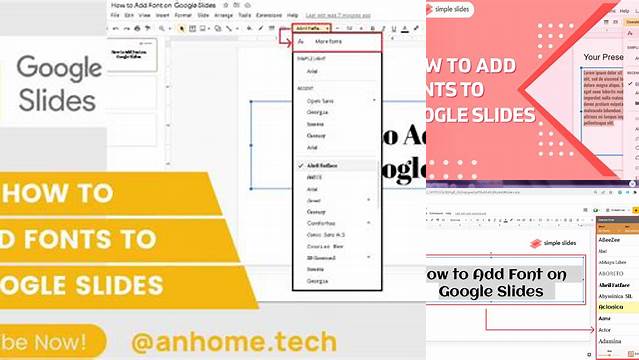
Add Fonts To Google Slides: A Step-by-Step Guide
Hey guys! Ever felt like your Google Slides presentations are missing that special something? You know, that unique touch that makes your slides pop and truly reflect your style? Well, one of the easiest ways to achieve this is by customizing your fonts! Google Slides offers a decent selection of fonts, but sometimes you need something more, something that perfectly complements your content and brand. Luckily, adding fonts to your Google Slides theme is a breeze, and in this article, I'm going to walk you through the process step-by-step. So, let's dive in and make your presentations visually stunning!
Why Add Custom Fonts to Google Slides?
Before we get into the how, let's quickly chat about the why. Why bother adding custom fonts? Well, think of it this way: fonts are like the voice of your presentation. They convey tone, personality, and professionalism. Using the same old default fonts can make your slides look generic and, let's be honest, a little boring. By adding custom fonts, you can:
- Enhance Visual Appeal: Custom fonts can dramatically improve the visual appeal of your slides, making them more engaging and memorable.
- Reflect Your Brand: If you're creating presentations for a business or organization, using brand-specific fonts helps maintain consistency and reinforces your brand identity.
- Add Personality: Different fonts have different personalities. A playful font can add a touch of fun, while a more formal font can convey professionalism and authority.
- Improve Readability: Choosing the right font can make your slides easier to read, ensuring your message gets across clearly.
- Stand Out from the Crowd: In a world of cookie-cutter presentations, custom fonts help you stand out and make a lasting impression.
Think about it, guys. A beautifully designed presentation with the perfect font can capture your audience's attention from the get-go. It shows you've put thought and effort into your work, and that you care about the details. Plus, it's just plain fun to experiment with different fonts and see how they transform your slides!
Step-by-Step Guide: Adding Fonts to Your Google Slides Theme
Alright, let's get down to the nitty-gritty. Here's a step-by-step guide on how to add fonts to your Google Slides theme. Don't worry; it's super easy, even if you're not a tech whiz!
Step 1: Open Google Slides and Access the Theme Builder
First things first, fire up Google Slides and open the presentation you want to customize. If you're starting from scratch, that's totally fine too! Once you're in your presentation, you need to access the Theme Builder. This is where the magic happens, guys. To do this, simply:
- Click on "Slide" in the top menu.
- Select "Edit theme" from the dropdown menu.
The Theme Builder will open in a new tab or window. This is where you can customize the overall look and feel of your presentation, including the fonts.
Step 2: Select Your Font in Theme Builder
Now that you're in the Theme Builder, you'll see a sidebar on the left-hand side. This sidebar contains the different slide layouts that make up your theme. To change the font for your entire presentation, you'll need to modify the main theme. Here's how:
- In the left-hand sidebar, click on the first slide layout, which represents the main theme. It's usually at the very top.
- Now, click on the text box where you want to change the font. This could be the title, the body text, or any other text element.
- In the toolbar above the slide, you'll see the font selection dropdown. It probably says something like "Arial" or "Calibri" right now.
- Click on the font selection dropdown to open the list of available fonts.
Step 3: Explore the Font Menu and Choose "More fonts"
Okay, here's where things get interesting! The font selection dropdown shows you a list of the fonts that are already available in Google Slides. But we want to add more, right? So, scroll down to the very bottom of the font list and click on "More fonts". This will open a new window with a whole bunch of font options!
This window is like a font paradise, guys. You'll find hundreds of fonts to choose from, organized in different categories and styles. It's easy to get lost in here, so take your time and explore!
Step 4: Browse and Add Your Desired Fonts
In the "More fonts" window, you'll see a massive list of fonts on the left-hand side. You can scroll through the list, or you can use the filters at the top to narrow down your search. Here are a few tips for finding the perfect fonts:
- Use the Categories: The categories filter lets you browse fonts by style, such as Serif, Sans Serif, Display, Handwriting, and Monospace. This is a great way to find fonts that match the tone of your presentation.
- Use the Scripts: The scripts filter lets you browse fonts that support different writing systems, such as Latin, Cyrillic, Greek, and more.
- Use the Sorting Options: You can sort the fonts by popularity, trending, or alphabetical order.
- Preview the Fonts: As you click on a font, you'll see a preview of how it looks in the right-hand panel. This is super helpful for visualizing how the font will look in your slides.
Once you find a font you like, simply click on it to add it to your list of available fonts. You'll see a blue checkmark appear next to the font name, and it will be added to the "My fonts" list at the top of the window. You can select multiple fonts at once, which is a real time-saver!
Step 5: Apply the Font to Your Theme
Once you've selected all the fonts you want to add, click the "OK" button in the "More fonts" window. This will close the window and return you to the font selection dropdown in the Theme Builder. Now, you'll see your newly added fonts in the list!
To apply the font to your theme, simply select it from the dropdown. The text in the text box you selected will instantly update to the new font. If you want to change the font for other text elements, just repeat steps 2 and 5 for each element.
Remember, guys, changing the font in the main theme layout will update the font for all the other slide layouts in your presentation. This is a quick and easy way to ensure consistency throughout your slides.
Step 6: Customize Font for Individual Slides (Optional)
While changing the font in the Theme Builder is a great way to set a consistent look for your entire presentation, you might want to customize the font for individual slides or text boxes. This is totally possible! To do this:
- Exit the Theme Builder by clicking the "X" in the top right corner.
- Select the slide you want to customize.
- Click on the text box you want to change.
- In the toolbar above the slide, click on the font selection dropdown.
- Choose your desired font from the list.
This will only change the font for the selected text box, leaving the rest of your presentation untouched. This is perfect for highlighting key points, adding emphasis, or simply creating visual variety.
Step 7: Save Your Theme
You've added your fonts, customized your slides, and your presentation is looking fantastic! Now, don't forget to save your theme! Google Slides automatically saves your changes, so you don't have to worry about losing your work. However, it's always a good idea to double-check that everything is saved correctly.
To make sure your theme is saved, simply close the Theme Builder tab or window. Your changes will be automatically applied to your presentation. And that's it! You've successfully added fonts to your Google Slides theme. Give yourself a pat on the back, guys!
Tips for Choosing the Right Fonts
Now that you know how to add fonts, let's talk about choosing the right ones. With so many fonts to choose from, it can be a little overwhelming. Here are a few tips to help you make the best choices:
- Consider Your Audience: Think about who you're presenting to. A formal audience might appreciate a more traditional font, while a creative audience might be more open to something bold and unique.
- Match the Tone of Your Presentation: The font should match the overall tone of your presentation. If you're giving a serious presentation, avoid overly playful or decorative fonts. If you're giving a fun presentation, feel free to experiment with more creative options.
- Ensure Readability: This is super important! Choose fonts that are easy to read, even from a distance. Avoid fonts that are too thin, too decorative, or too small.
- Use a Limited Number of Fonts: Stick to a maximum of two or three fonts in your presentation. Too many fonts can make your slides look cluttered and unprofessional.
- Pair Fonts Wisely: If you're using multiple fonts, make sure they complement each other. A good rule of thumb is to pair a serif font (like Times New Roman) with a sans-serif font (like Arial).
- Test Your Fonts: Before you give your presentation, test your fonts on different devices and screen sizes to make sure they look good.
Choosing the right fonts is an art, guys. It takes practice and experimentation. Don't be afraid to try different combinations and see what works best for you.
Sometimes, things don't go exactly as planned. You might encounter a few issues when adding fonts to Google Slides. Here are some common problems and how to fix them:
- Font Doesn't Appear in the List: If you've added a font to your "My fonts" list but it doesn't appear in the font selection dropdown, try refreshing your browser. Sometimes, Google Slides just needs a little nudge to update the font list.
- Font Looks Different on Another Computer: If you're using a custom font, it might not be installed on other computers. This can cause your slides to look different when you present them on a different device. To avoid this, you can embed the fonts in your presentation or use Google Fonts, which are available on all devices.
- Font is Too Small or Too Large: If your font is too small or too large, you can adjust the font size in the toolbar above the slide. Experiment with different sizes until you find one that looks good.
- Font is Not Displaying Correctly: If your font is displaying incorrectly (e.g., missing characters or strange symbols), try clearing your browser cache and cookies. This can sometimes fix font display issues.
If you're still having trouble with fonts, don't hesitate to reach out to Google Slides support or search for solutions online. There are tons of helpful resources available.
So, there you have it, guys! You're now equipped with the knowledge and skills to add fonts to your Google Slides theme and create stunning presentations. Customizing your fonts is a simple yet powerful way to enhance the visual appeal of your slides, reflect your brand, and make a lasting impression on your audience.
Remember, fonts are like the voice of your presentation. Choose them wisely, experiment with different styles, and have fun with it! And don't forget to save your theme so you can use your custom fonts in all your future presentations. Now go out there and create some amazing slides!